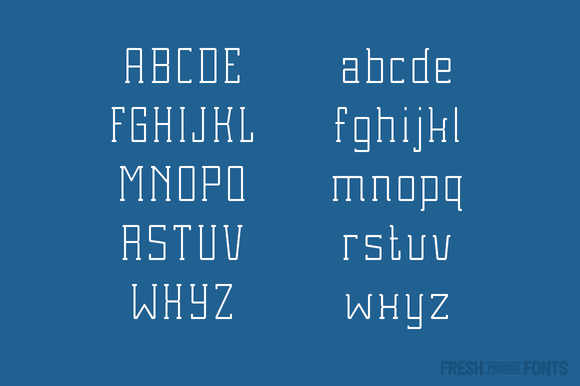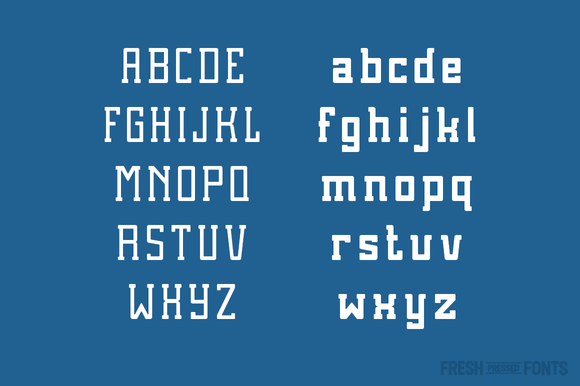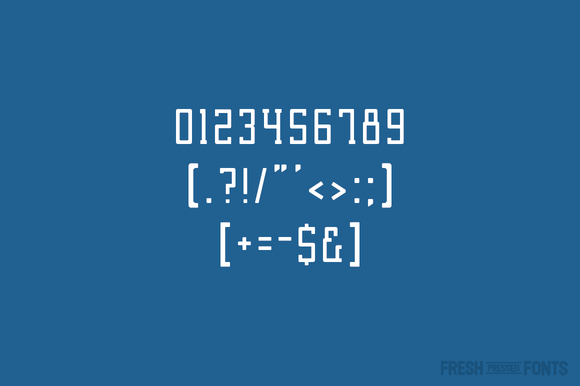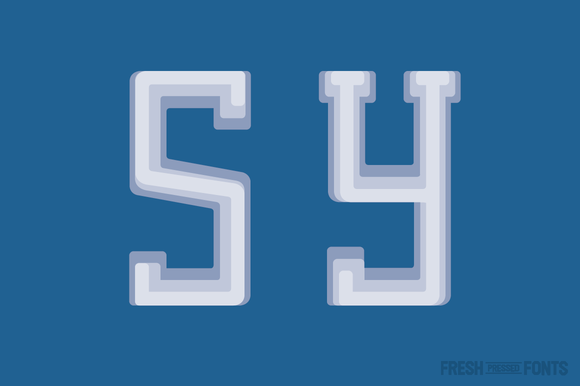
Brassie Family
Brassie Family: A Versatile Slab Serif with Sports Inspiration
The Brassie Family is a versatile slab serif typeface that draws inspiration from the world of sports, particularly golf. This font family combines geometric precision with subtle rounded edges, creating a smooth and appealing aesthetic reminiscent of a well-executed golf shot.
Key Features of Brassie Family
• Versatile Design: Suitable for a wide range of applications while maintaining a sports-inspired character
• Geometric Base: Features a clean, structured foundation for clarity and readability
• Rounded Edges: Subtle curves soften the geometric forms, enhancing visual appeal
• Sports Influence: Inspired by golf, adding a unique character to the typeface
Family Members
The Brassie Family includes three weights, offering flexibility for various design needs:
• Brassie Light: Perfect for body text or subtle headings
• Brassie Regular: Ideal for general use across different applications
• Brassie Bold: Great for headlines and emphasis
Ideal Uses for Brassie Family
This font family’s unique blend of versatility and sports-inspired design makes it suitable for:
• Sports branding and marketing materials
• Golf club logos and signage
• Lifestyle and fitness publications
• Modern, clean designs requiring a touch of personality
Comparison with Other Slab Serif Fonts
While Brassie Family shares characteristics with other slab serifs like Tecnica Slab Family, its sports-inspired design and subtle rounding set it apart. Unlike more traditional slab serifs such as Osgood Slab, Brassie offers a more contemporary and dynamic feel.
When using Brassie Family in your designs, consider the following tips:
• Utilize different weights to create hierarchy and visual interest
• Pair with sans-serif fonts for a balanced, modern look
• Consider using it in projects related to sports, particularly golf
• Experiment with the font in both display and text settings
Brassie Family is an excellent choice for designers looking for a versatile slab serif with a unique sports-inspired twist. Its geometric base and subtle rounding make it stand out in the world of typography. Whether you’re working on logo designs, editorial layouts, or creating eye-catching website headers, Brassie Family offers the perfect blend of functionality and character.
Explore how Brassie Family can elevate your design projects with its sports-inspired aesthetic and versatile weights. From golf-related branding to modern lifestyle publications, this font family provides the tools to create impactful and engaging typography.